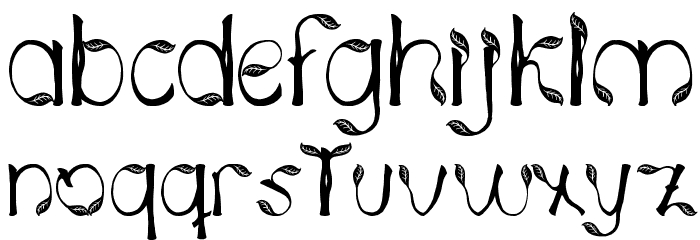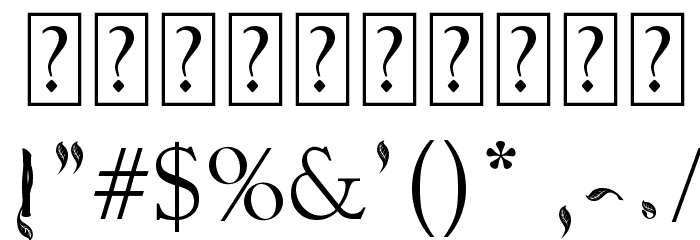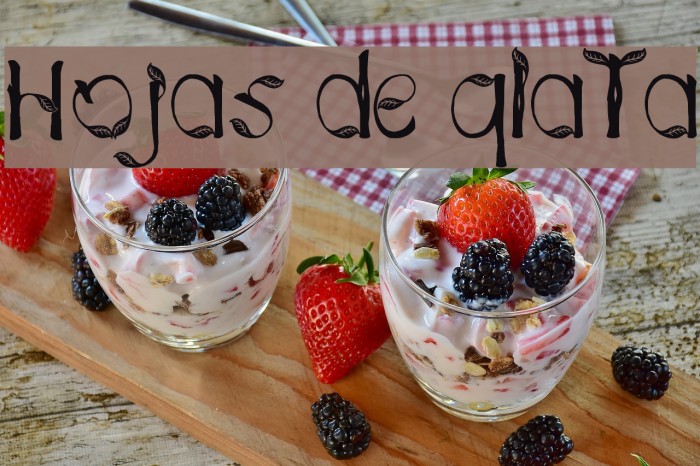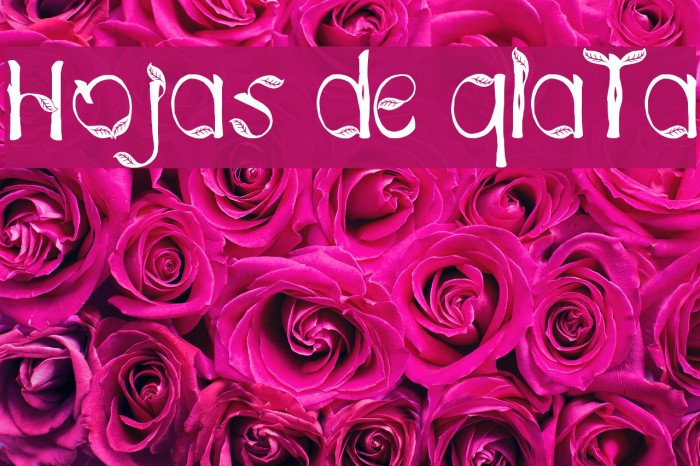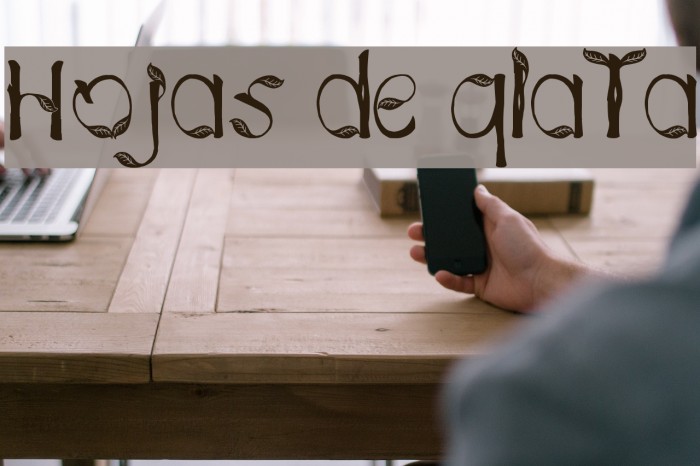
Hojas de plata Font
This font features a unique and decorative style with leaf-like embellishments integrated into each character. The uppercase and lowercase letters are adorned with intricate leaf patterns that give a natural and organic feel. The characters maintain a consistent width, providing a balanced appearance. The font includes a full set of uppercase and lowercase letters, numbers, and a variety of special characters, making it versatile for creative projects. Its artistic flair makes it stand out, ideal for designs that require a touch of nature or elegance.
A decorative font with leaf-like embellishments on each character.
- Proposed Projects: Ideal for eco-friendly branding, nature-themed invitations, or artistic posters.
- Use Case: Logos, Invitations, Posters